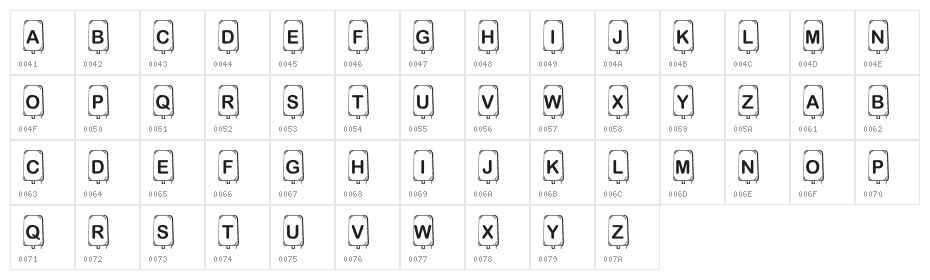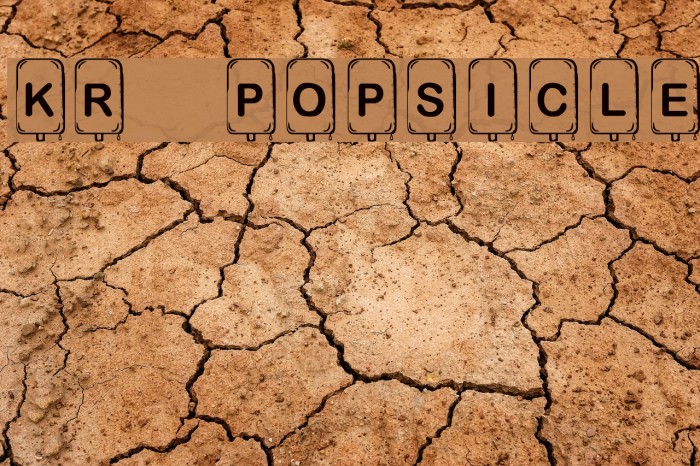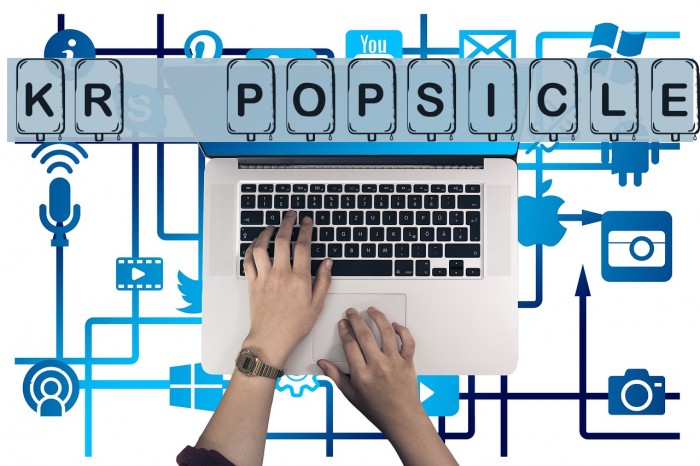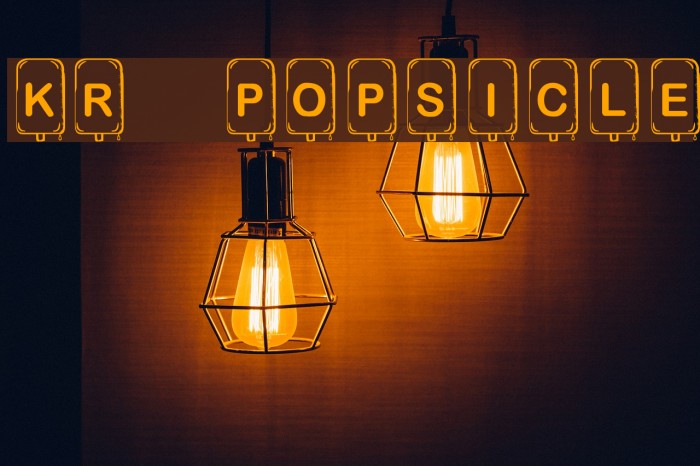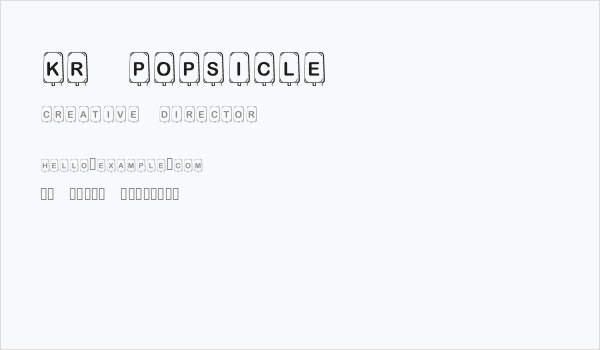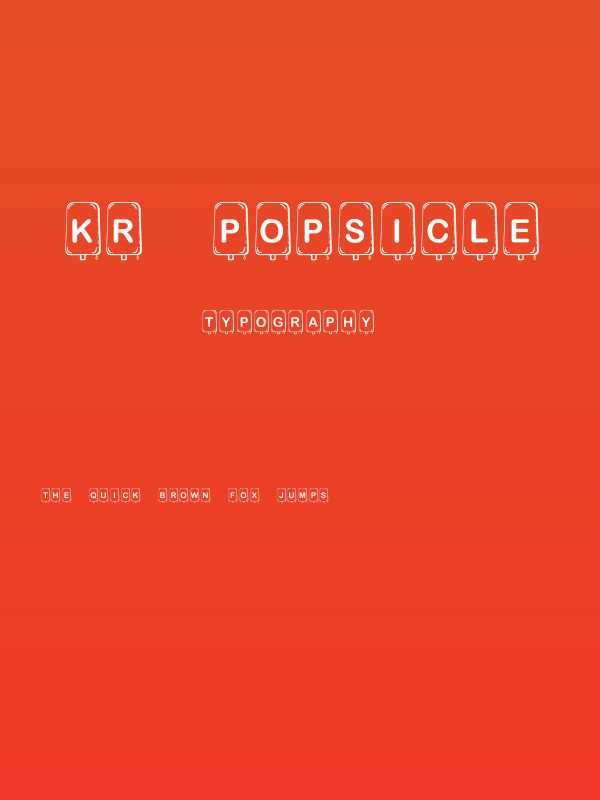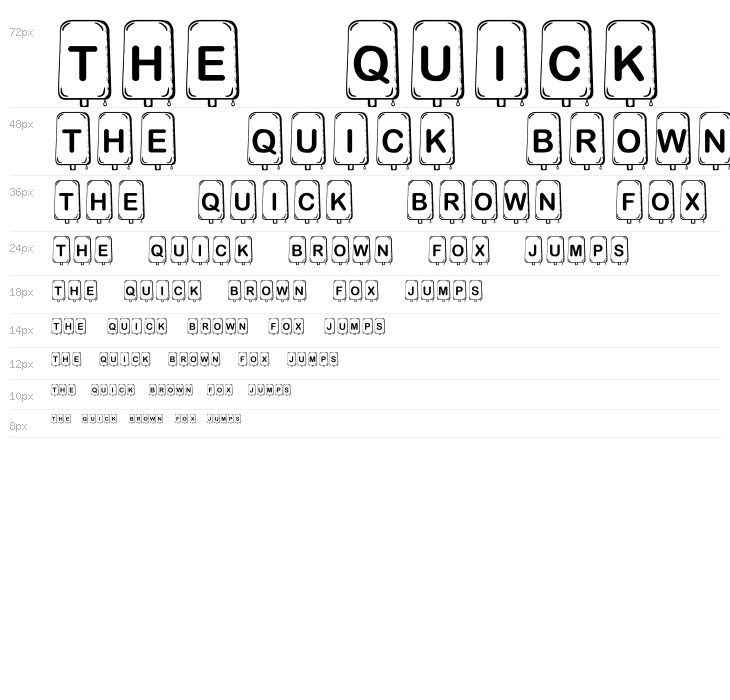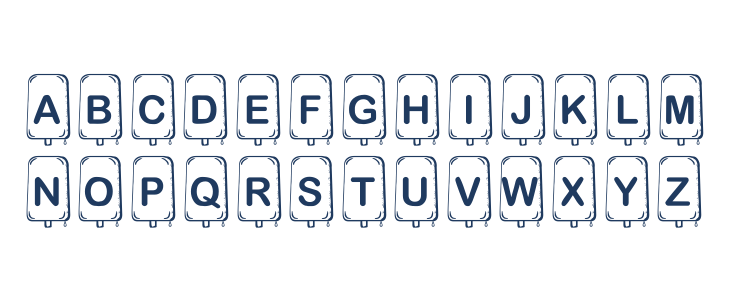
KR Popsicle Font
KR Popsicle Description
This playful and whimsical font features characters encased in popsicle shapes, creating a fun and unique visual appeal. Each letter is bold and clear, with a consistent thickness that ensures readability while maintaining a lighthearted tone. The rounded edges of the popsicle frames add a soft touch, making the font approachable and friendly. The design is consistent across both uppercase and lowercase letters, as well as numbers and special characters, ensuring versatility in various applications. The font's distinct style makes it ideal for projects that require a touch of creativity and fun.
| Proposed Projects | Ideal for children's book covers, playful branding, party invitations, and summer-themed designs. |